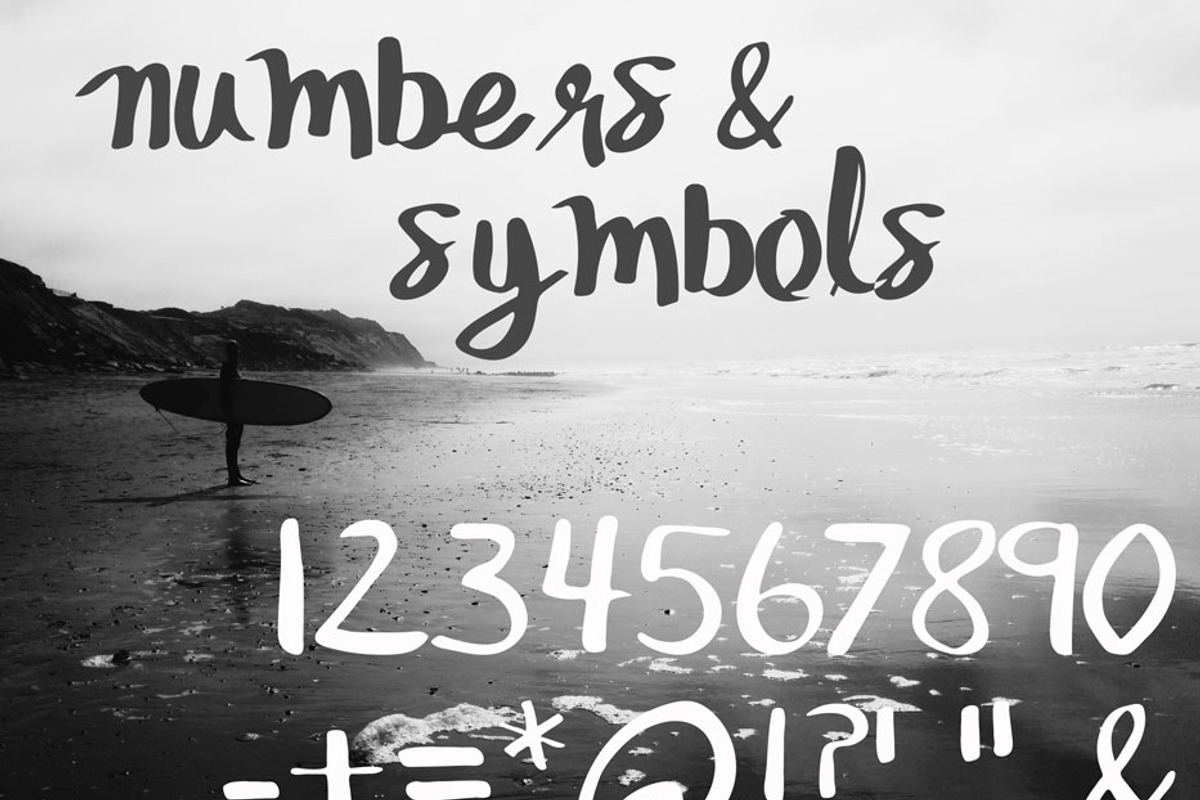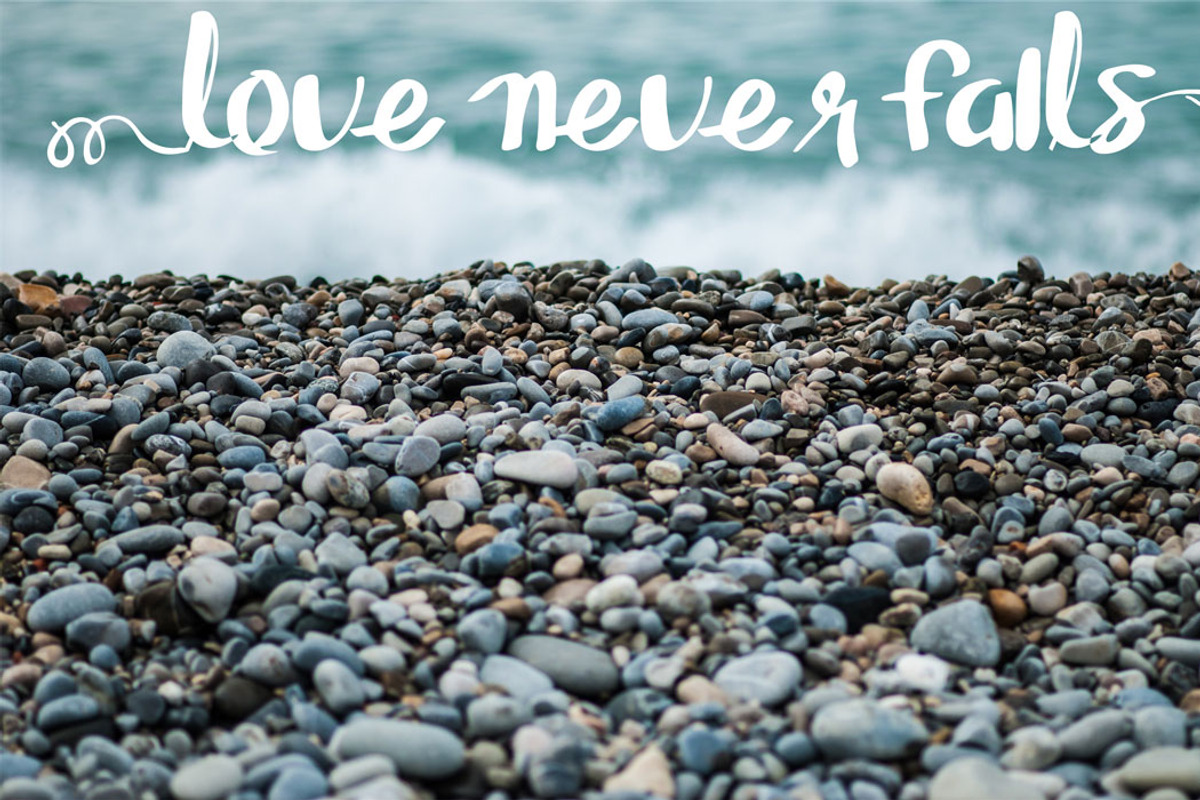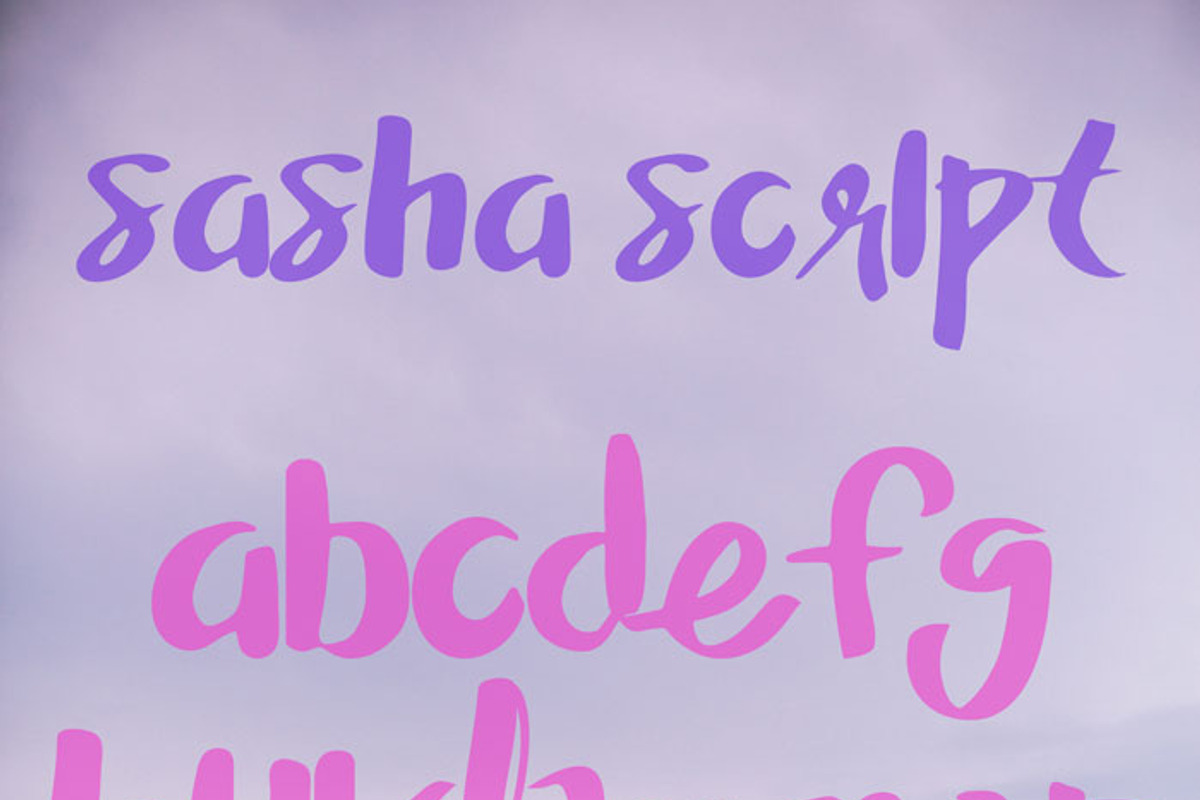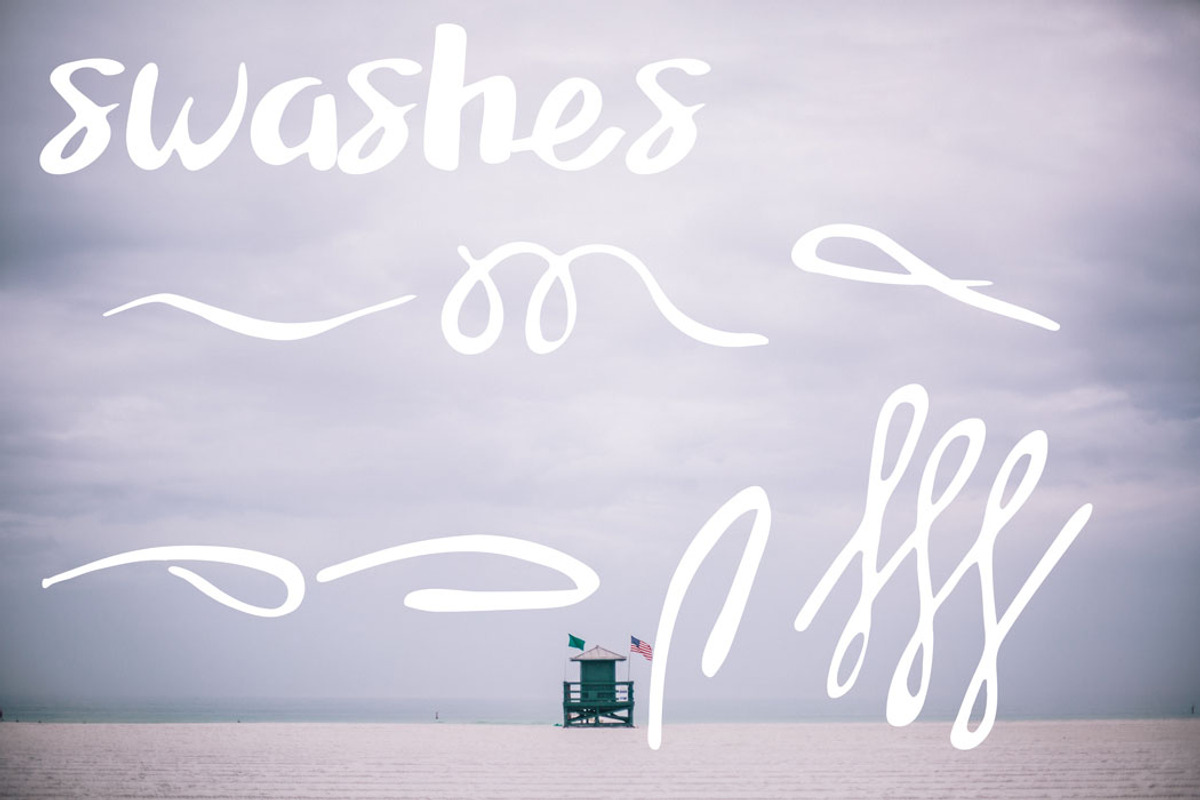
Sasha Script, A Hand Painted Font
Sasha Script, A Hand Painted Font by draw & co. is a font selected for branding, posters, packaging, typography.
Why Sasha Script, A Hand Painted Font is worth a look
Sasha Script, A Hand Painted Font by draw & co. fits naturally into Branding, posters, packaging, typography.